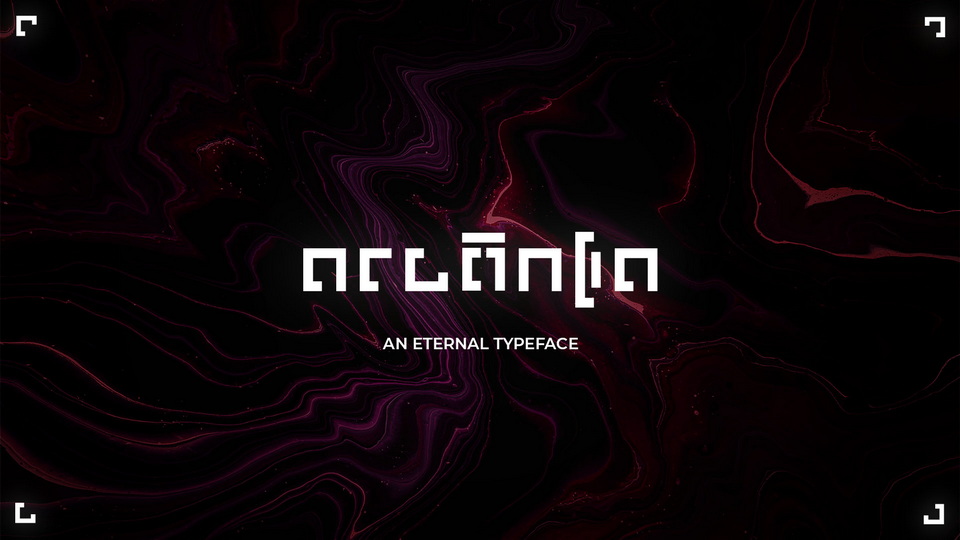
Download Arcanea font, a robust typeface with a crisp and minimalist look. Its runic appearance is perfect for RPGs and anything fantasy related.
Designer: Edy Daicu